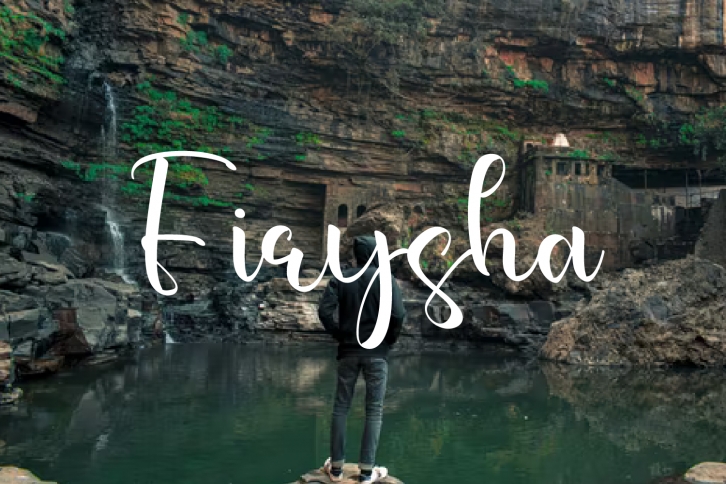
the latest style letters are perfect for wall displays, wedding invitations, social media post logos, advertisements, product packaging, product designs, labels, photography, watermarks, invitations, stationery, and any project that requires taste handwriting.